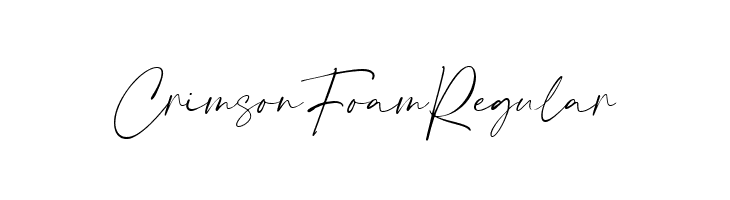
A modern, high-contrast font with elegant and artistic character designs.
An elegant script font with flowing, cursive letters and ornate flourishes.
A playful and elegant script font with a handwritten style.